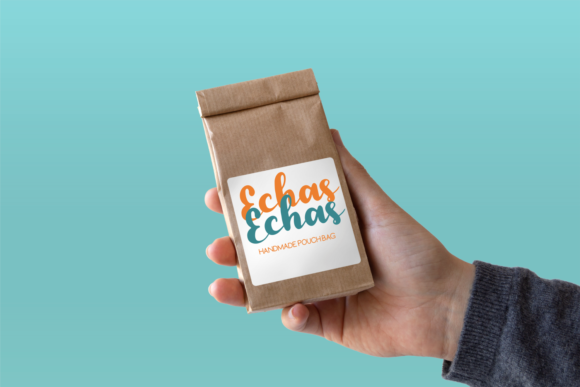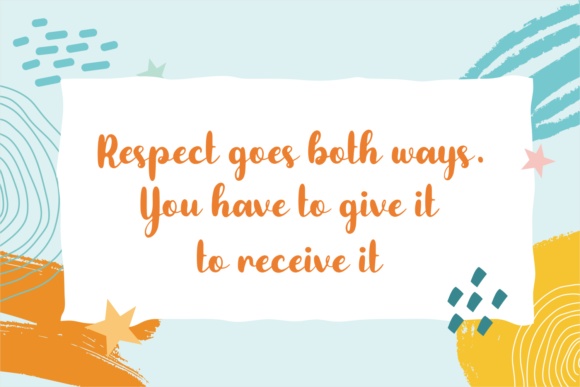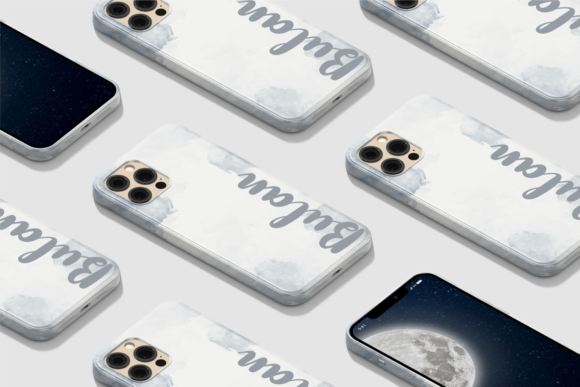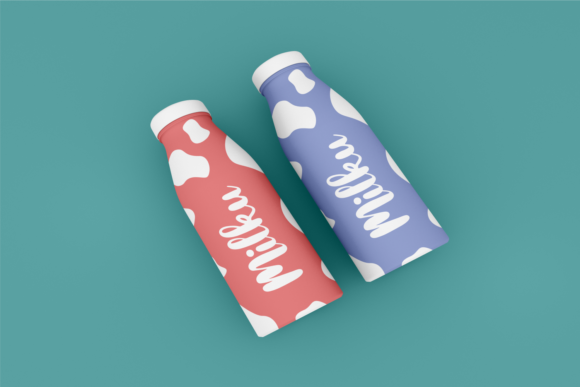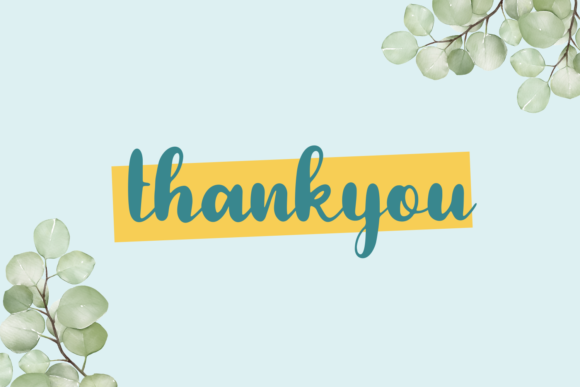
Craftone Font
About Craftone Font
Craftone is a lovely script font featuring charming, playful characters that seem to dance along the baseline. Add this font to your most creative ideas, and notice how it makes them stand out!